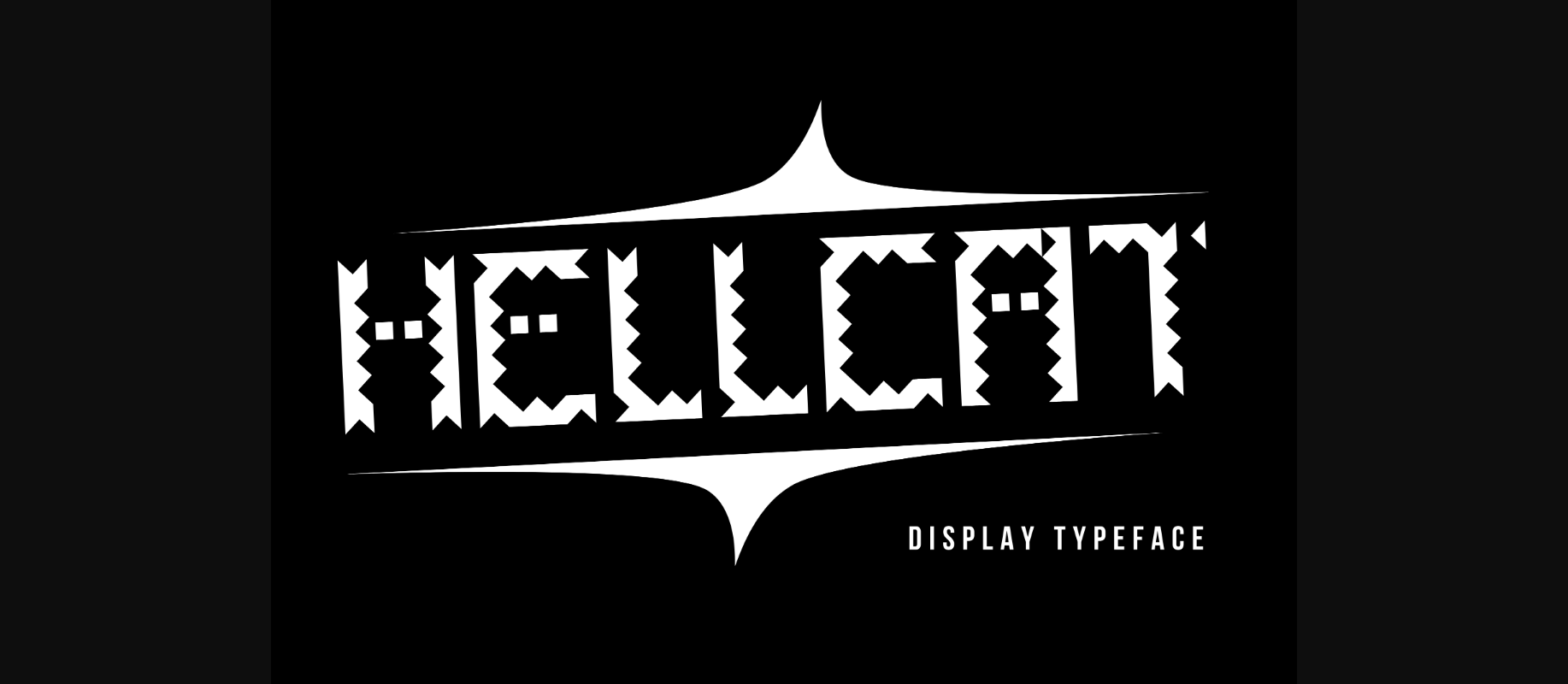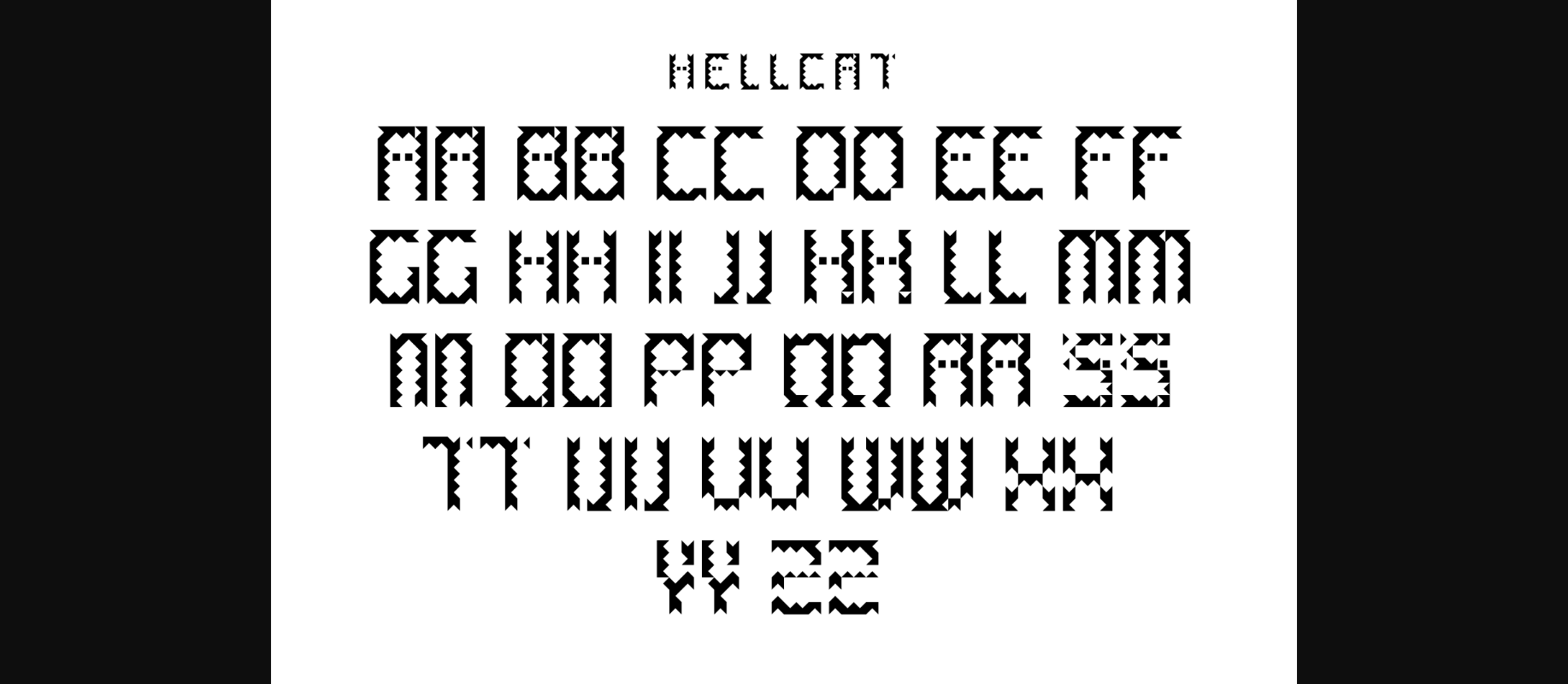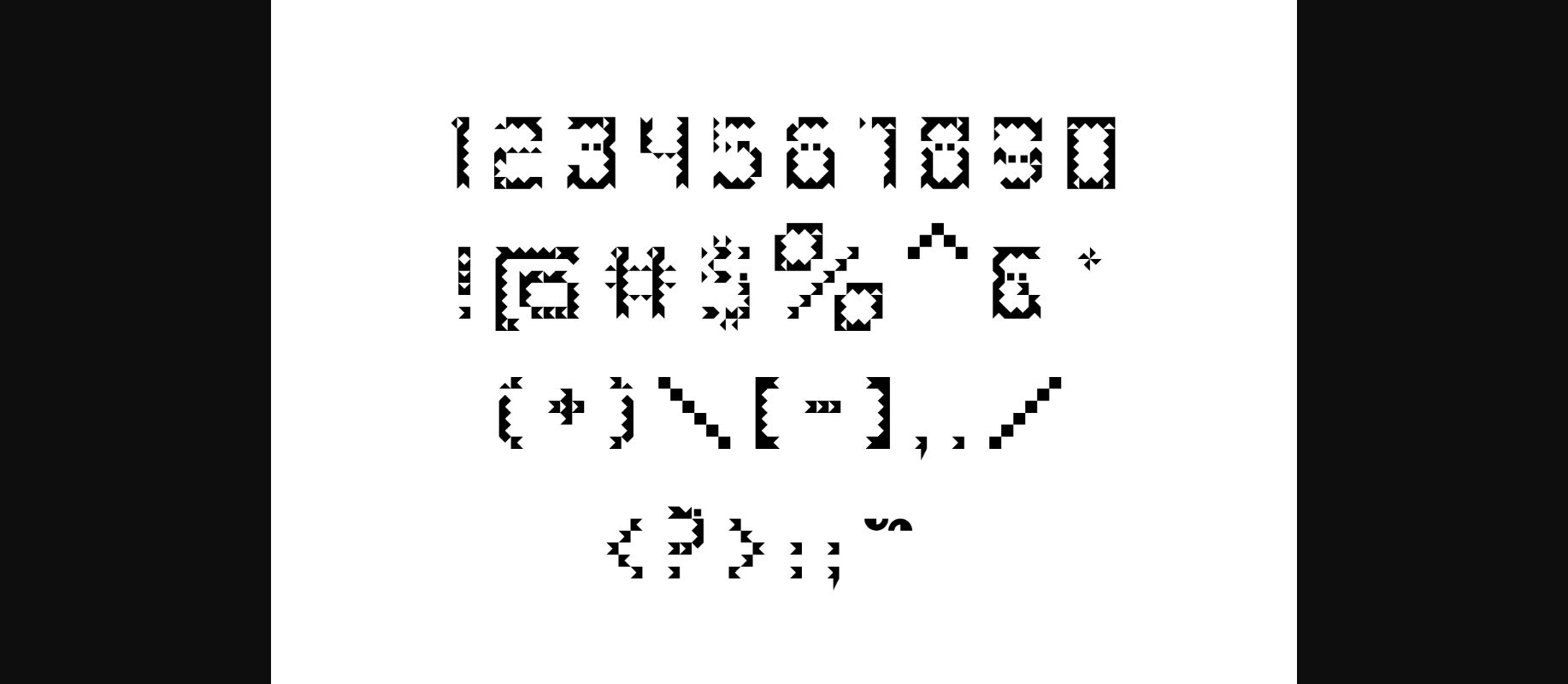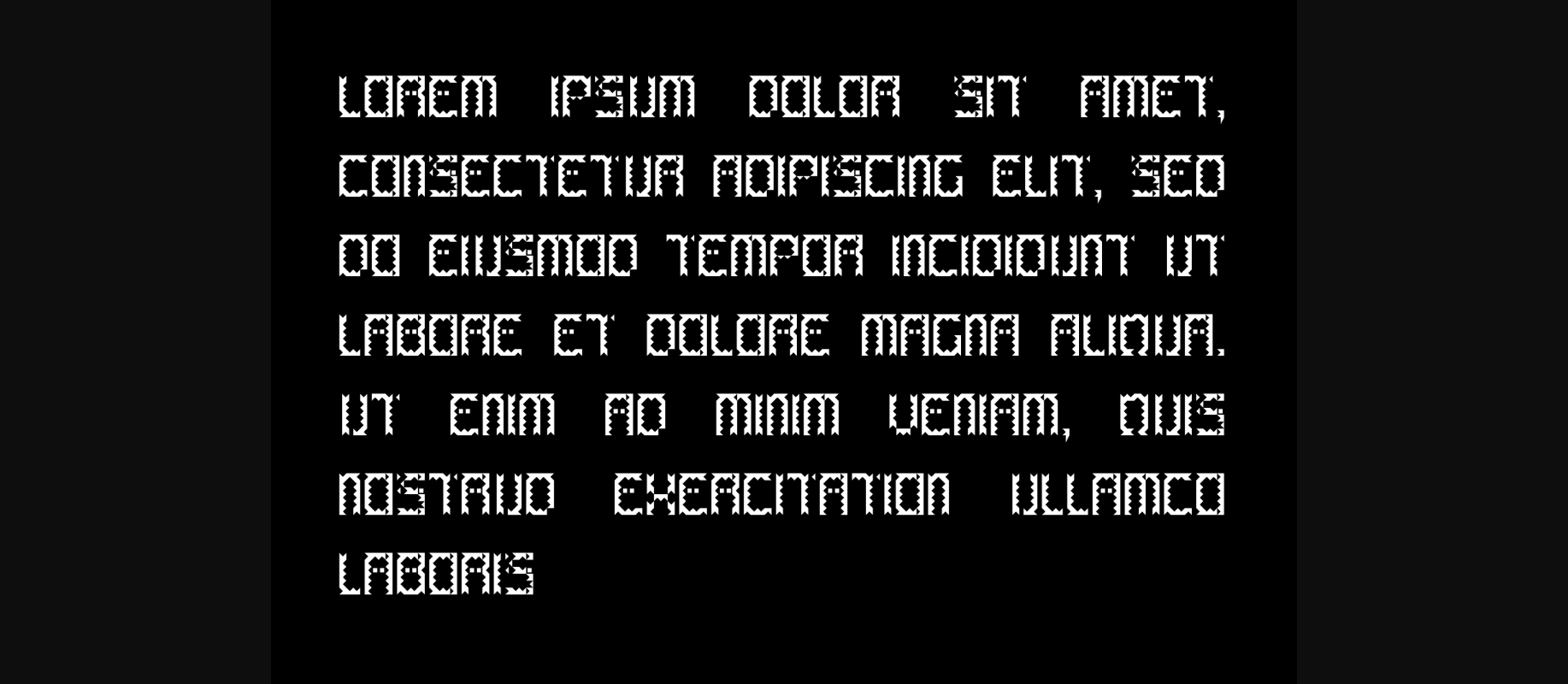
About Hellcat Font
Hellcat font is a sleek and contemporary typeface that combines modern design with feline charm. Featuring subtle cat-inspired motifs in its letters, this font adds a touch of mystique to your projects. Whether for edgy posters, stylish invitations, or captivating branding, Hellcat font brings a purrfectly sophisticated flair to your creative projects.